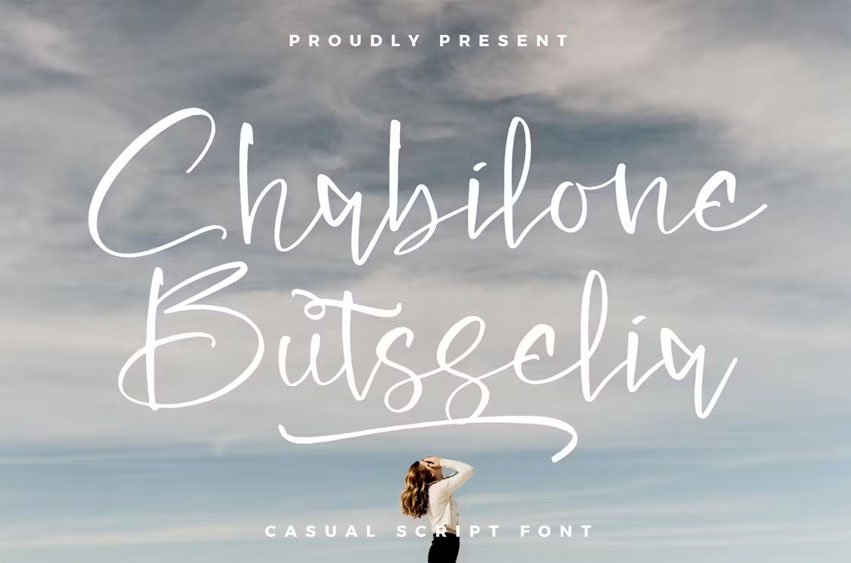
Chabilone Butsselia Font is suitable to complement your digital and printed creative products. This font is perfect for posters, social media posts, branding, personal projects, etc.
Chabilone Butsselia Font Preview